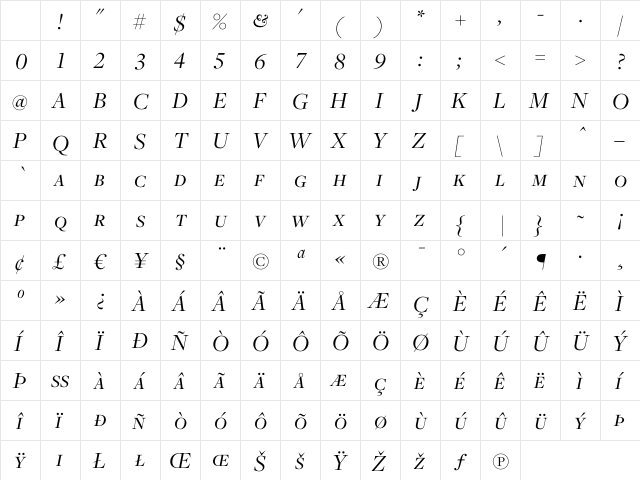
Freight is a composed and adaptable typeface that performs quietly and consistently across a wide range of design contexts. The slanted form adds forward momentum and visual energy.
Pro Tip: Use Freight for emphasis, pull quotes, and subheadings where its slanted energy can add rhythm to the layout.